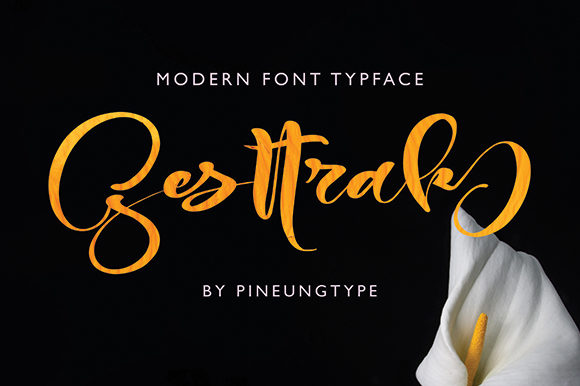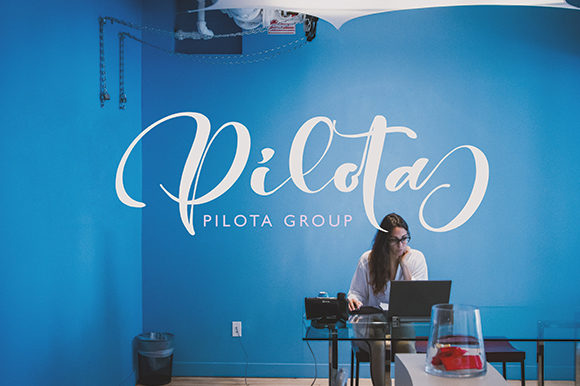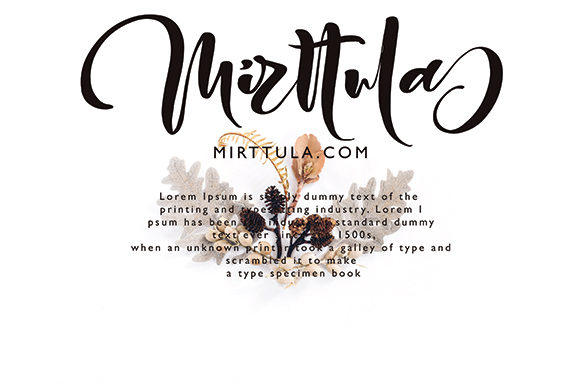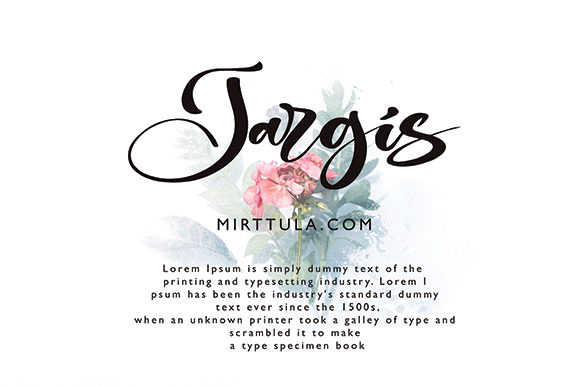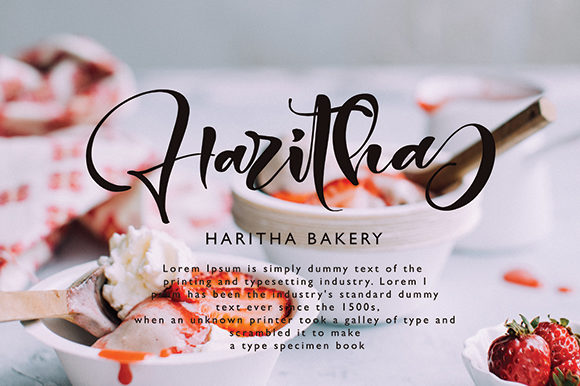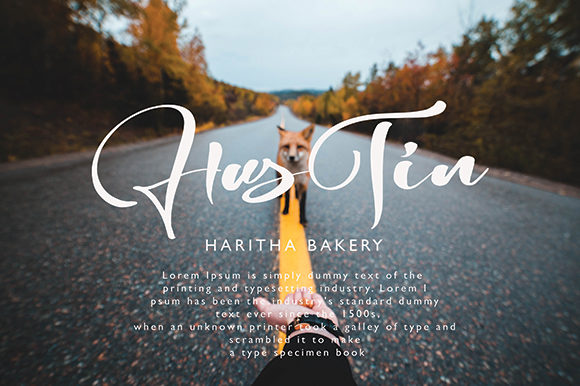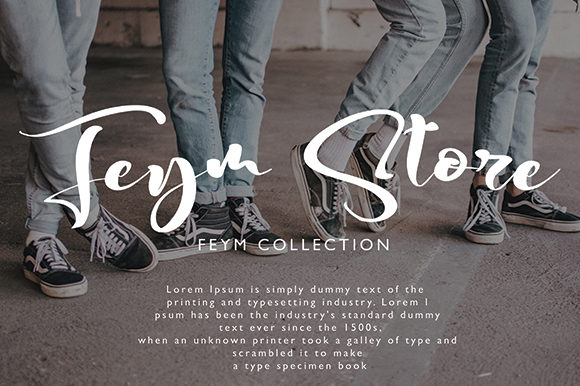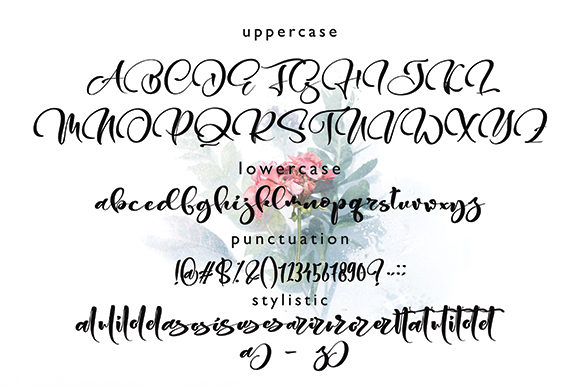
Gesttrak Font
About Gesttrak Font
Gesttrak is a stylish handwritten font. Whether you’re looking for fonts for Instagram or calligraphy scripts for DIY projects, Gesttrak will turn any creative idea into a true piece of art!